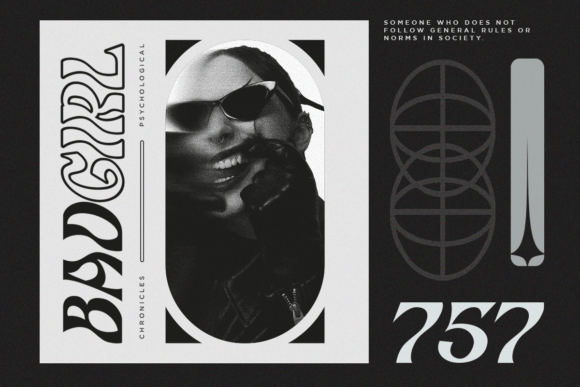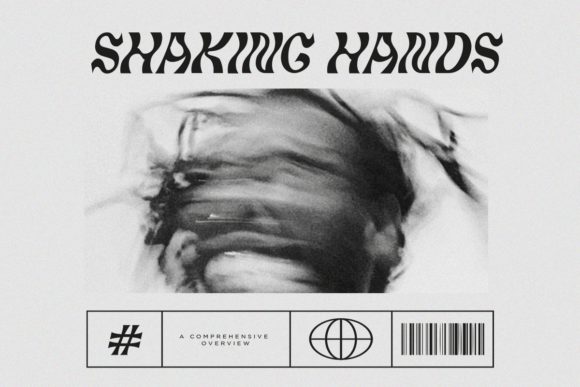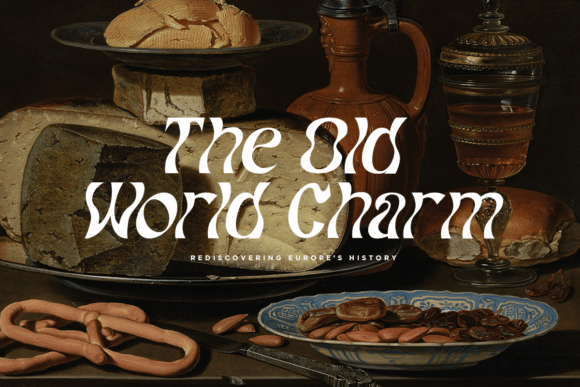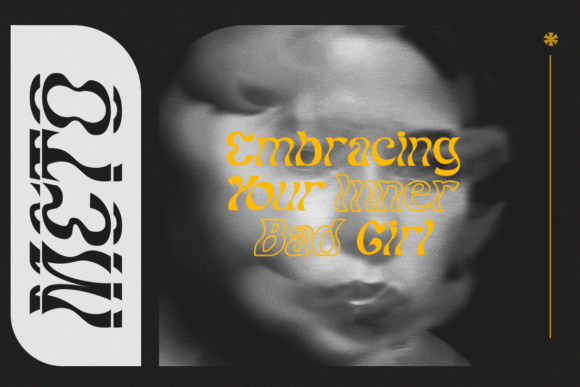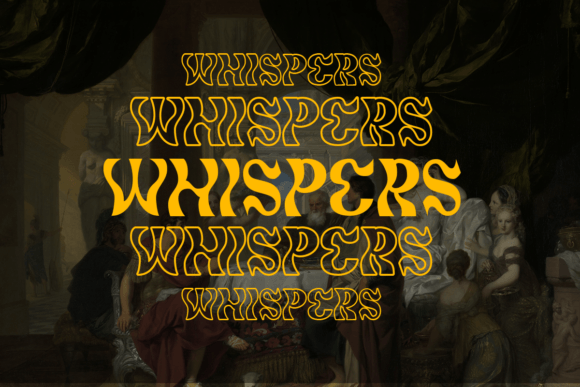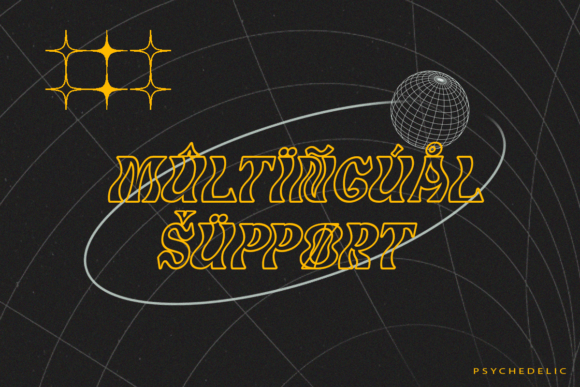
Introduction to Mochaik Font
You know that moment when a design sparks an idea and you just can’t shake it off? For designers, it’s often the thrill of finding the perfect font that sets the creative wheels turning. And that’s exactly what the Mochaik Font does – it brings a dash of psychedelic magic to your designs, transporting you to a bygone era of free-spirited creativity.
Whether you’re working on a music poster, album graphics, or book titles, the Mochaik Font adds a unique, whimsical touch that’s sure to captivate your audience. This high-quality design resource is a must-have for any creative project, offering a range of possibilities for designers looking to push the boundaries of their work. With its transparent background and free download option, you can easily integrate the Mochaik Font into your next project and unlock a world of creative possibilities.
Key Features of Mochaik Font
- High-quality design resource with a unique, modern aesthetic, ideal for creative projects.
Honest Review: Mochaik Font
As I started experimenting with the font, I was impressed by its high quality. The Mochaik Font has a unique, modern design that makes it perfect for a variety of projects, from graphic design to digital art.
- ✨ The font’s modern design makes it versatile and easy to use.
- ✨ The high quality of the font ensures that it looks great on any background, including transparent backgrounds.
- ⚠️ The font may not be suitable for very formal or traditional projects, as its modern design may not fit the aesthetic.
- ⚠️ The font’s unique design may not be to everyone’s taste.
Overall, I’m impressed by the Mochaik Font. Its high quality, modern design, and free download option make it a valuable resource for designers working on creative projects. While it may not be suitable for every project, it’s definitely worth checking out.
Tips for Getting the Most Out of Mochaik Font
To get the most out of the Mochaik Font, experiment with different font sizes, colors, and combinations. Use the font’s transparent background to create visually appealing designs. Additionally, use the font in conjunction with other design elements to add depth and interest to your creative project.
The Mochaik Font is ideal for use in a variety of creative projects, including logos, branding materials, and social media graphics. Its high quality and versatility make it a popular choice among designers and non-designers alike.